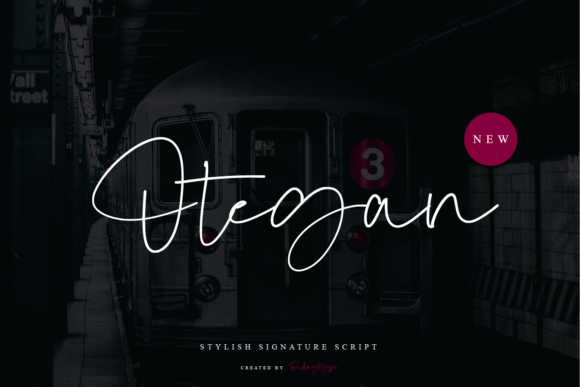
Journey into the Enchanting Realm of Otegan Font: Unveiling the Masterpiece for Your Literary Masterworks
In the realm of literature, where words dance and imaginations soar, the font you choose holds the power to transform your story into an immersive experience. Meet Otegan Font, the captivating script font that will cast a spell on your readers, drawing them into the depths of your narrative.
Otegan, a creation of the renowned Fridaytype, is a font of beauty and mystery. Its elegant lines and delicate curves evoke a sense of intrigue, perfectly suited for authors crafting tales of suspense, fantasy, and the unknown. Each letter, like a whisper from a forgotten world, carries a weight of history and emotion, inviting readers to lose themselves in the pages of your book.
With Otegan, you'll paint vivid pictures with each word, creating scenes that come alive in the reader's mind. Its clean, thin, and smooth vibe lends an air of sophistication, enhancing the readability of your text without sacrificing its visual appeal. Whether you're weaving a tale of love, loss, or adventure, Otegan will be your faithful companion, guiding readers through the labyrinth of your imagination.
Mystery novels, in particular, find a perfect ally in Otegan. Its intricate details and subtle flourishes add depth and texture to your storytelling, enhancing the atmosphere of suspense and intrigue. Imagine your readers turning the pages, their hearts racing as they follow the twists and turns of your plot, captivated by the visual elegance of Otegan.
But Otegan's charm extends beyond the realm of mystery. Its versatility shines in various genres, from romance to historical fiction, from children's books to poetry. Its ability to evoke emotions and set the tone makes it a font of choice for authors seeking to create lasting impressions on their readers.
So, embrace the power of Otegan Font, and let your words take flight. Unlock the secrets of your imagination and craft stories that resonate with your audience. With Otegan as your font, you'll leave an indelible mark on the literary world, captivating readers and earning their unwavering admiration.